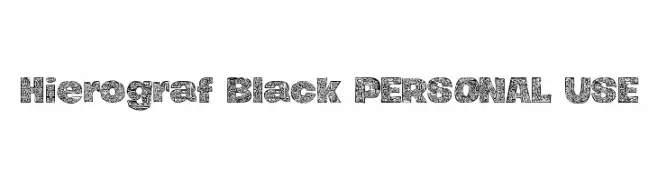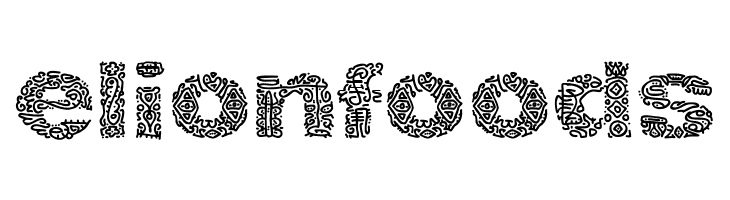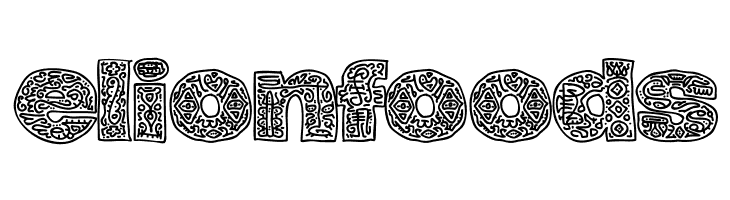
( Måns Grebäck - www.mansgreback.com )
An intricate, decorative font with abstract patterns within each character.
( Måns Grebäck - www.mansgreback.com )
A decorative font with intricate patterns and bold outlines.
( Måns Grebäck - www.mansgreback.com )
A bold, blocky font with thick strokes and rounded edges.
( Måns Grebäck - www.mansgreback.com )
A decorative font with intricate pattern-filled characters.